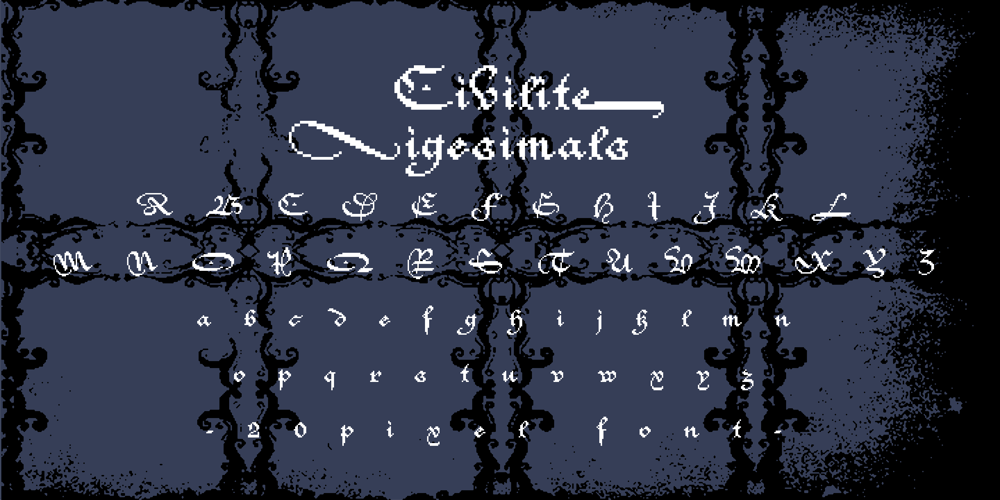
Civilite Vigesimals Font Family was designed by Ryoichi Tsunekawa and published by Dharma Type. Civilite Vigesimals contains 1 styles and family package options. The Civilite is a historic script in the sixteenth century. This 8-bit pixel font is designed with respect for 80s game designers and the pixel font pioneers in middle 90s. Use at size 20 pixels or multiplies of 20 and anti-alias off is recommended. List of our Pixel Font Project. ·Flat10 Antique ·Flat10 Artdeco ·Flat10 Arts&Crafts ·Flat10 fraktur ·Flat10 Holy ·Flat10 Holly ·Flat10 Segments ·Flat10 Stencil ·Flat20 Gothic ·Flat20 Headline ·Flat20 Hippies ·Flat20 Streamer ·Behrensmeyer Vigesimals ·Civilite Vigesimals